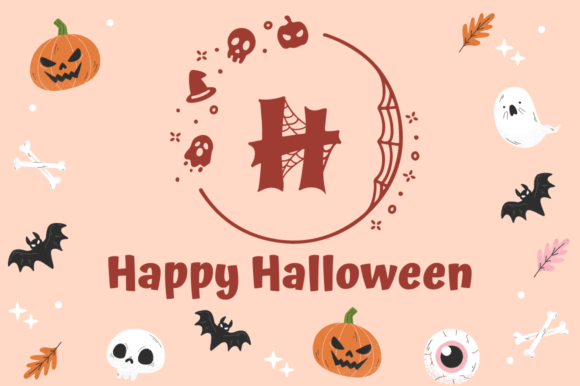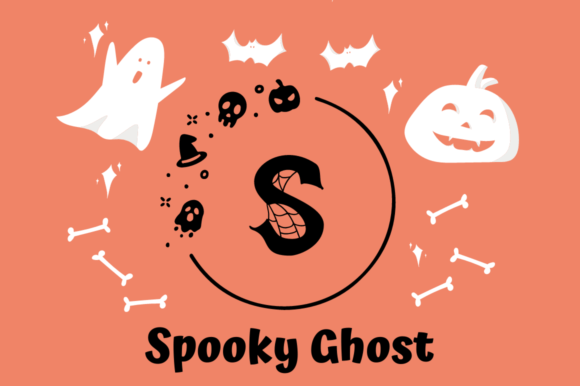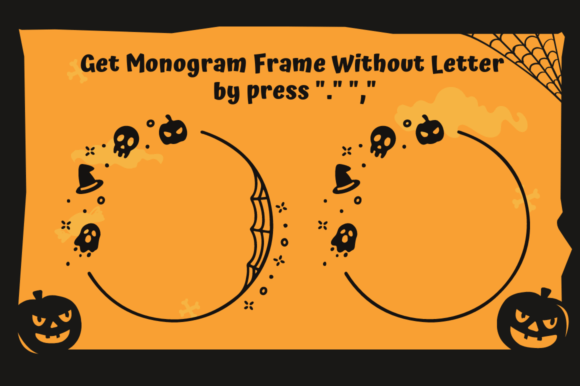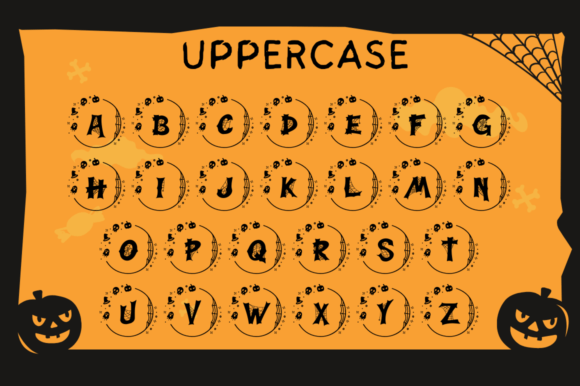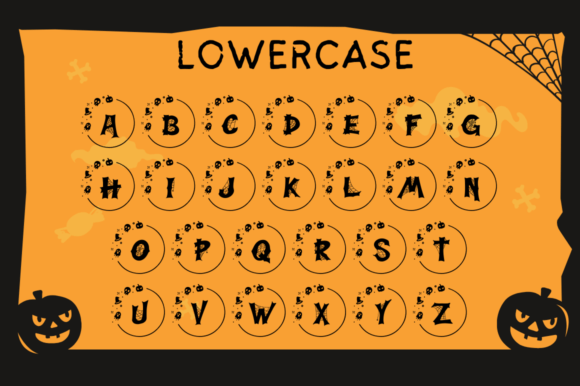
Introduction to Ghoweb Halloween Monogram Font
Do you remember the thrill of staying up late on Halloween night, surrounded by jack-o’-lanterns and the spooky sounds of the wind? For many of us, Halloween is a time to let our creativity shine and get into the spirit of things. Whether you’re designing party invitations, creating spooky decorations, or crafting unique gifts, the right font can make all the difference.
Enter the Ghoweb Halloween Monogram Font, a high-quality, free download that’s perfect for your next creative project. This whimsical monogram font is a valuable design resource for anyone looking to add a touch of spookiness to their designs. With its transparent background and intricate details, it’s the perfect addition to any Halloween-themed project.
Key Features of Ghoweb Halloween Monogram Font
- High-quality, intricate design perfect for creative projects and spooky themes.
- Comes in a range of sizes, from small to large, to suit various design needs and resolutions.
- Designed with a unique, hand-drawn aesthetic, adding a touch of whimsy and personality to any project.
- Perfect for Halloween-themed designs, party invitations, and other spooky projects, or for adding a touch of whimsy to non-Halloween designs.
Honest Review: Ghoweb Halloween Monogram Font
I recently stumbled upon the Ghoweb Halloween Monogram Font and I must say, it’s a fantastic addition to any design project. As a designer, I appreciate high-quality resources that can elevate a creative project and this font definitely delivers. The free download option is also a big plus, making it easily accessible to anyone looking to spice up their design.
One of the standout features of this font is its versatility. It can be used for a wide range of design projects, from spooky Halloween-themed posters to elegant monogram designs. The transparent background option also makes it easy to use with any background image or color scheme.
- Transparent background option for seamless integration
- Perfect for Halloween-themed designs, monogram designs, and more
- May not be suitable for non-Halloween themed projects
- Could be improved with more font styles or variations
Overall, I’m really impressed with the Ghoweb Halloween Monogram Font. It’s a fantastic design resource that’s perfect for any creative project. With its high-quality design, free download option, and transparent background, it’s definitely worth checking out.
To get the most out of the Ghoweb Halloween Monogram Font, use it on a transparent background to create a stunning design element. Experiment with different font sizes, colors, and styles to add a unique touch to your project.
The Ghoweb Halloween Monogram Font is perfect for creating spooky-themed designs, invitations, and graphics for Halloween celebrations. You can also use it in other creative projects, such as party decorations, social media graphics, and greeting cards.